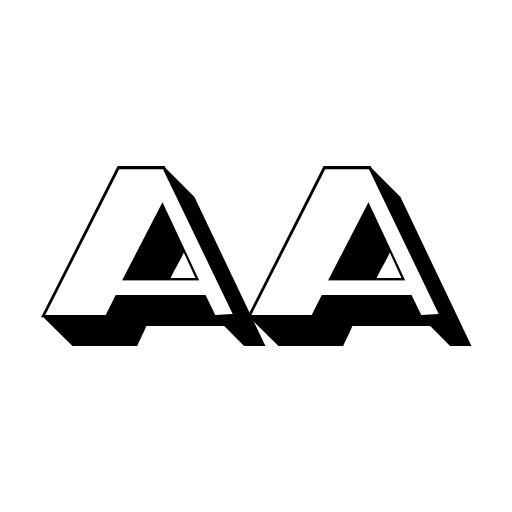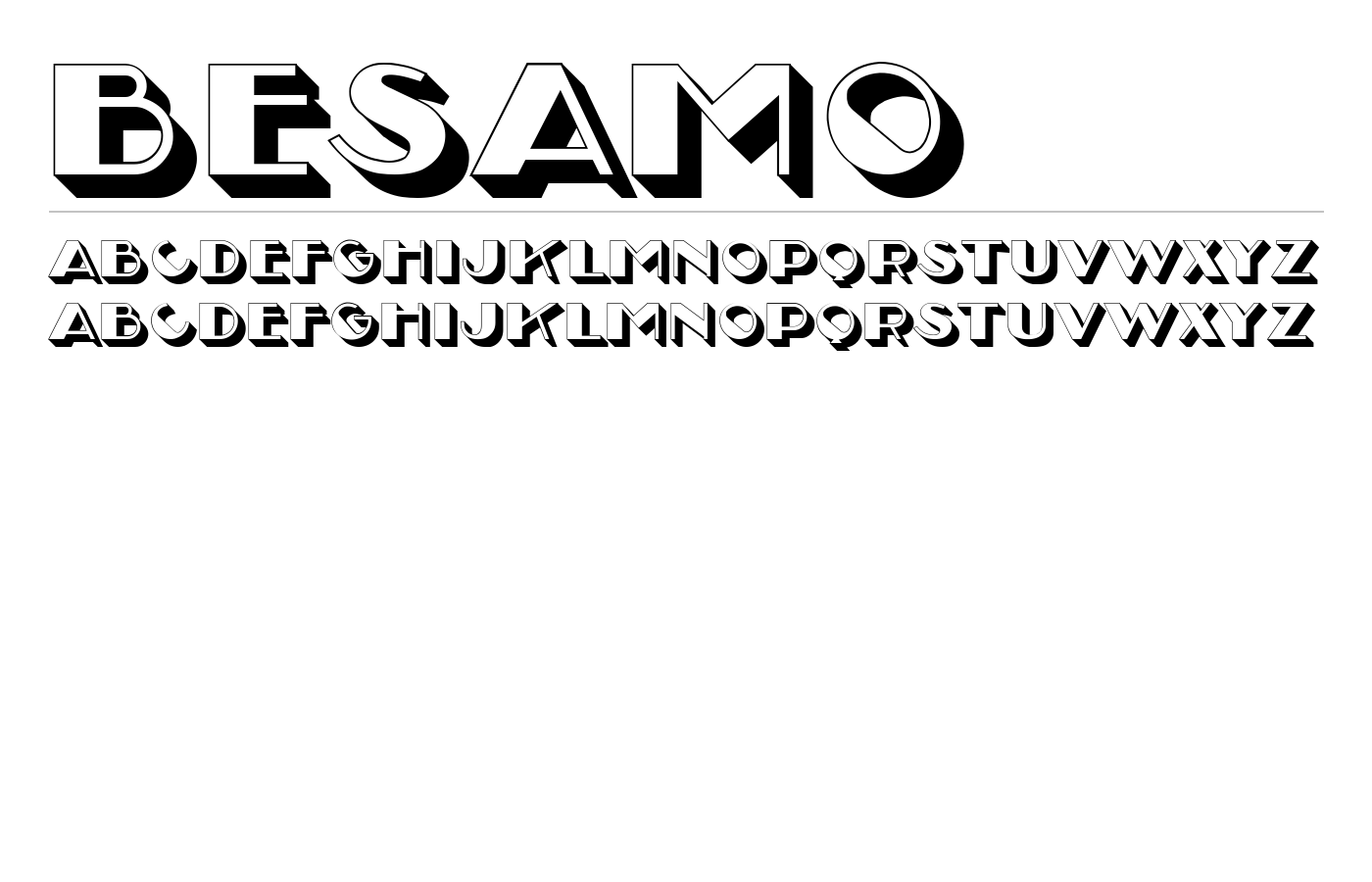
Besamo is a bold, geometric sans serif font with a strong three-dimensional shadow effect that gives it a striking, vintage-inspired look. Its clean lines and high contrast between the solid face and shadows make it perfect for eye-catching headlines, logos, and display use where a playful yet impactful style is desired. This font works best in creative branding and posters, adding a dynamic and memorable flair to the design.
Besamo Font
About Besamo Font